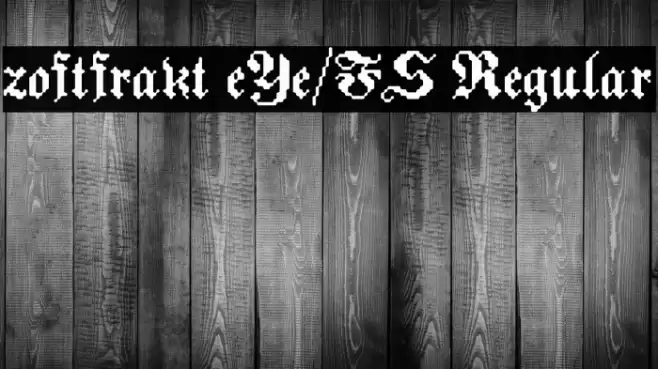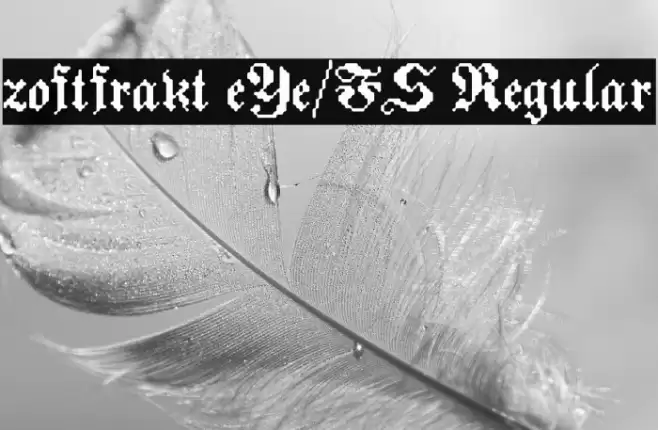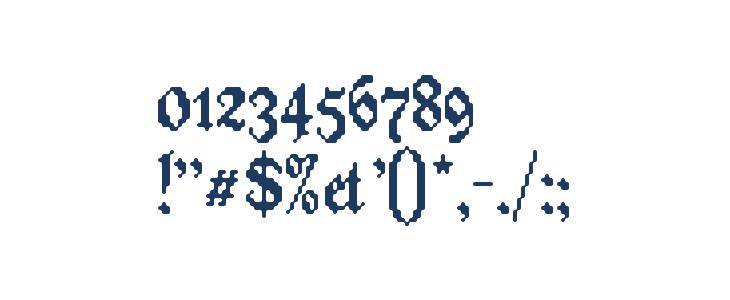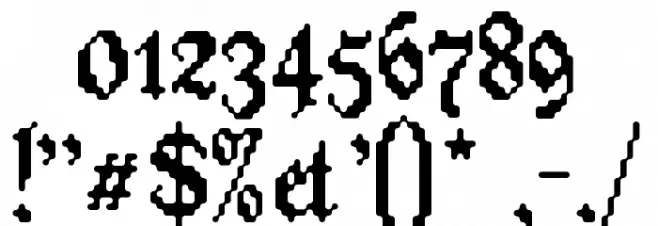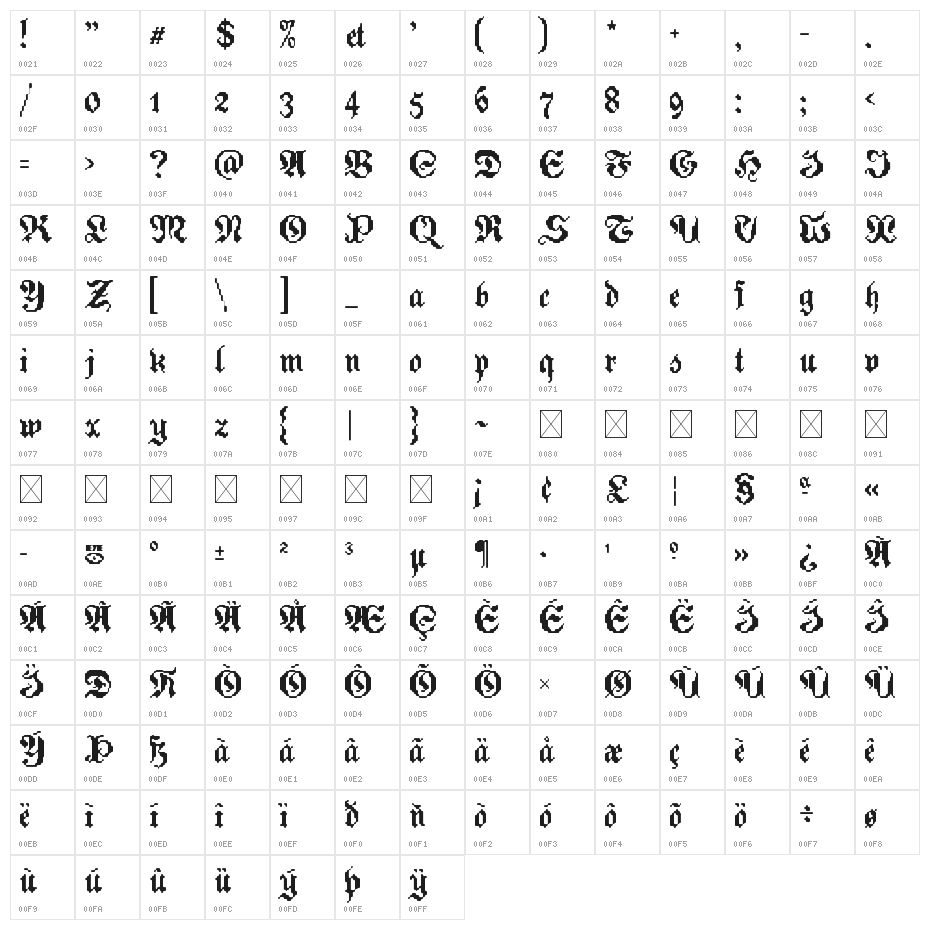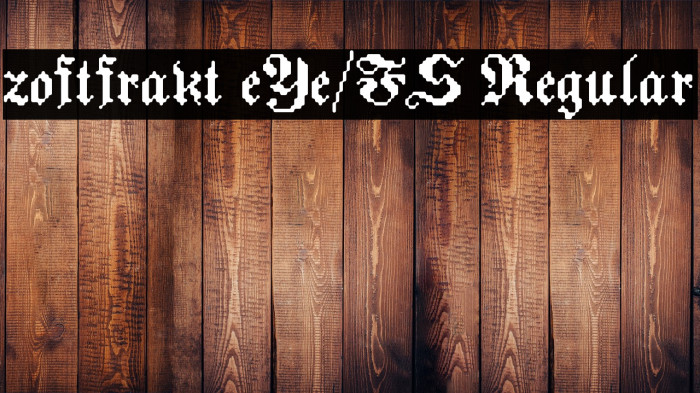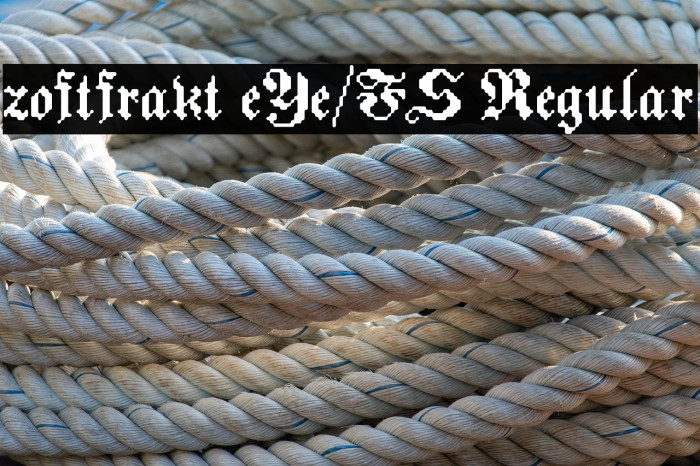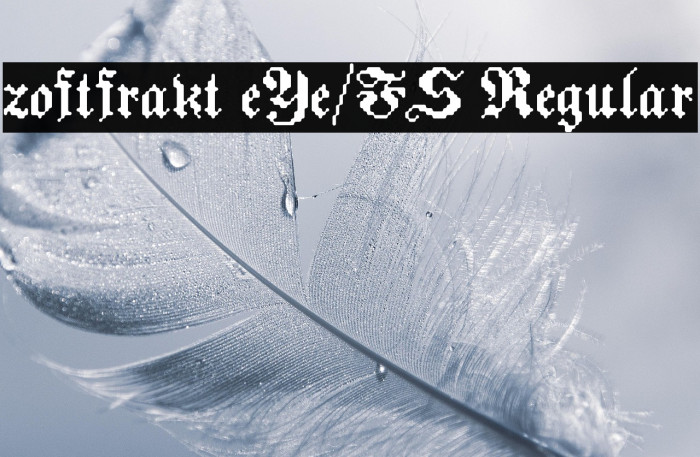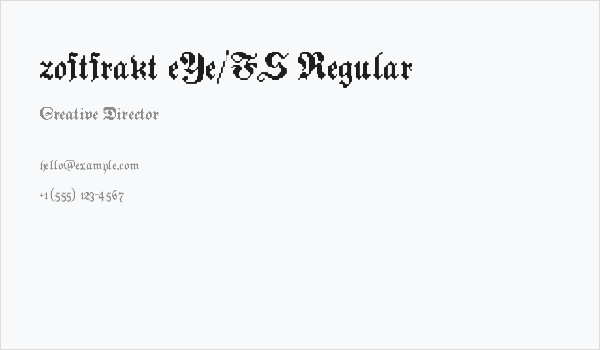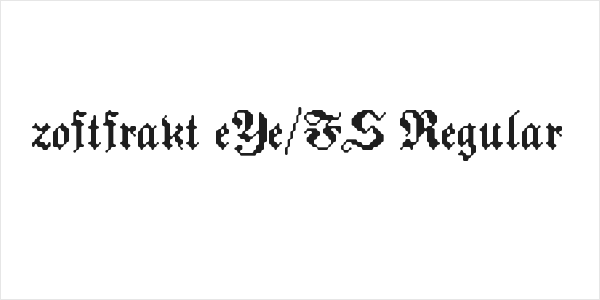
zoftfrakt eYe/FS Regular Font
zoftfrakt eYe/FS Regular Description
This font exhibits a classic blackletter style, characterized by its intricate and ornate design. The uppercase letters feature sharp, angular lines with decorative flourishes, giving them a bold and authoritative appearance. The lowercase letters maintain a similar aesthetic, with a slightly more condensed form that enhances readability while preserving the traditional blackletter essence. The numerals are consistent with the overall style, offering a distinct and cohesive look. Special characters are designed with the same attention to detail, ensuring they blend seamlessly with the rest of the typeface. This font is ideal for projects that require a historical or medieval touch, such as event invitations, branding for vintage-themed products, or any design that seeks to evoke a sense of tradition and elegance.
A classic blackletter font with intricate, ornate designs and bold, angular lines from Regular fonts.
- Proposed Projects: Ideal for vintage-themed branding, historical event invitations, and designs seeking a traditional touch.
- Overall Style: Vintage
- Use Case: Logos, Headlines, Decorative text